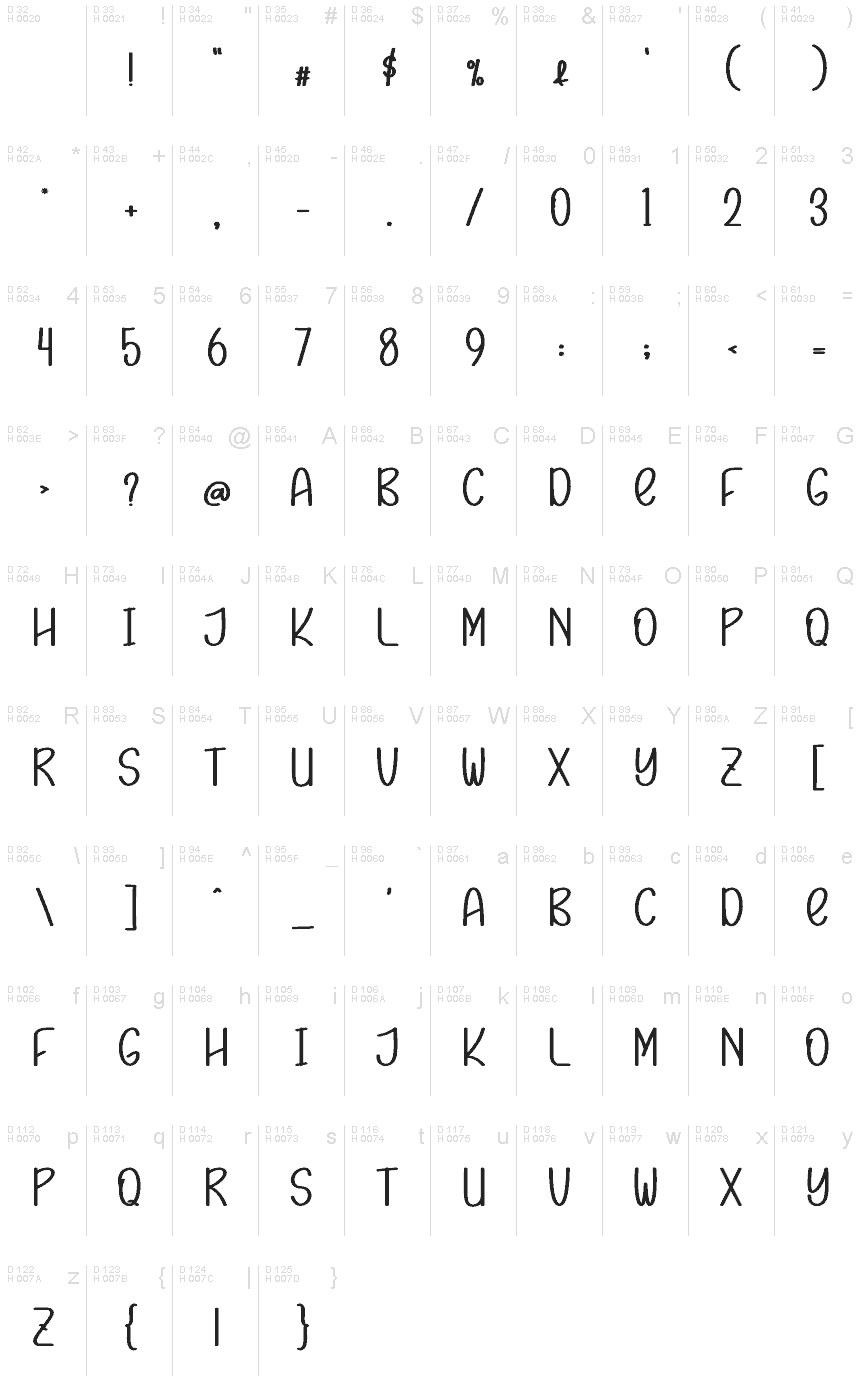
Work Night
Work Night font is a quirky handwritten font with a condensed width style designed by Andi Moz. Its letters seem to be written by free-hand using a black marker pen giving the font its characteristic traits of irregularity and authenticity. Get your design projects to automatically appear approachable and relaxed with this casual style, exclusively available from Blankids Studio.
Use the Work Night font for all types of printing or digital displays including posters, signage, flyers, invitations, websites, branding logos and business cards. Give some personality to your packaging designs, restaurant menu cards as well as interior pages of literary magazines and publications.